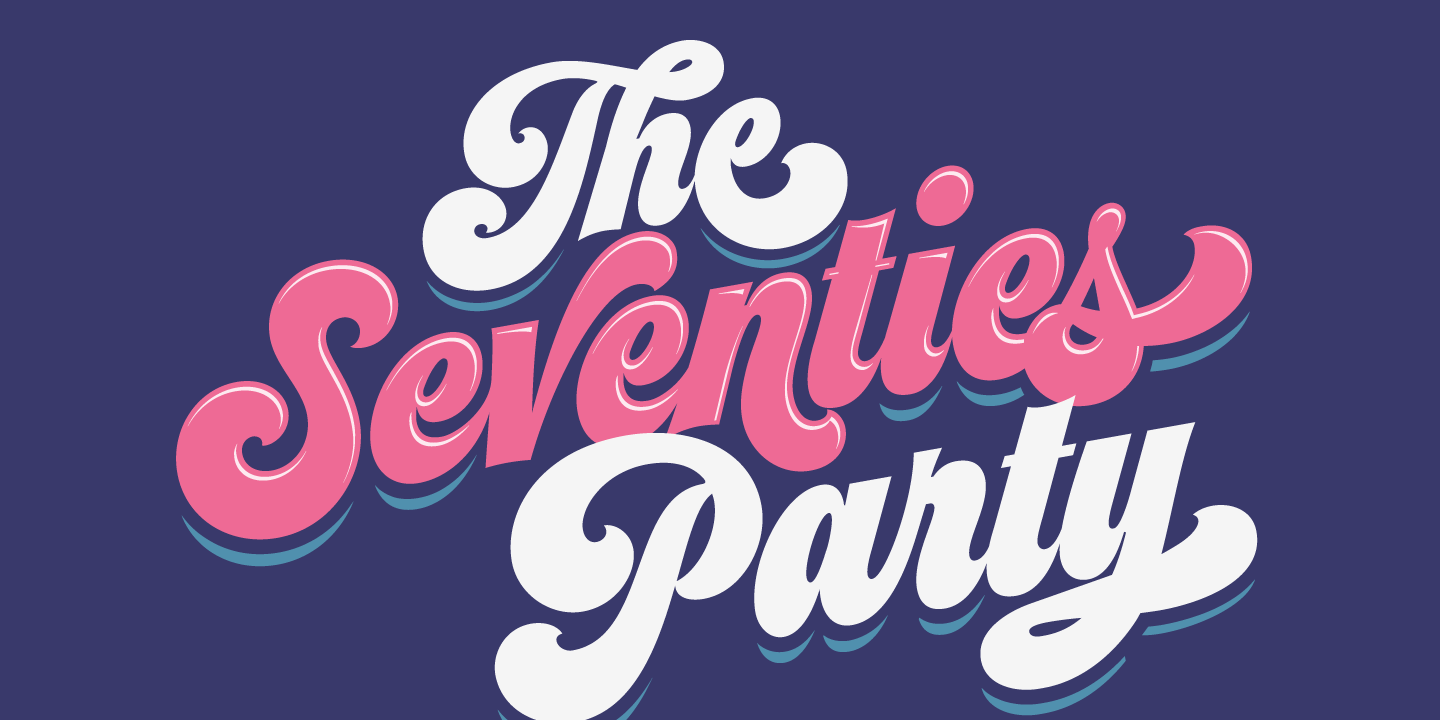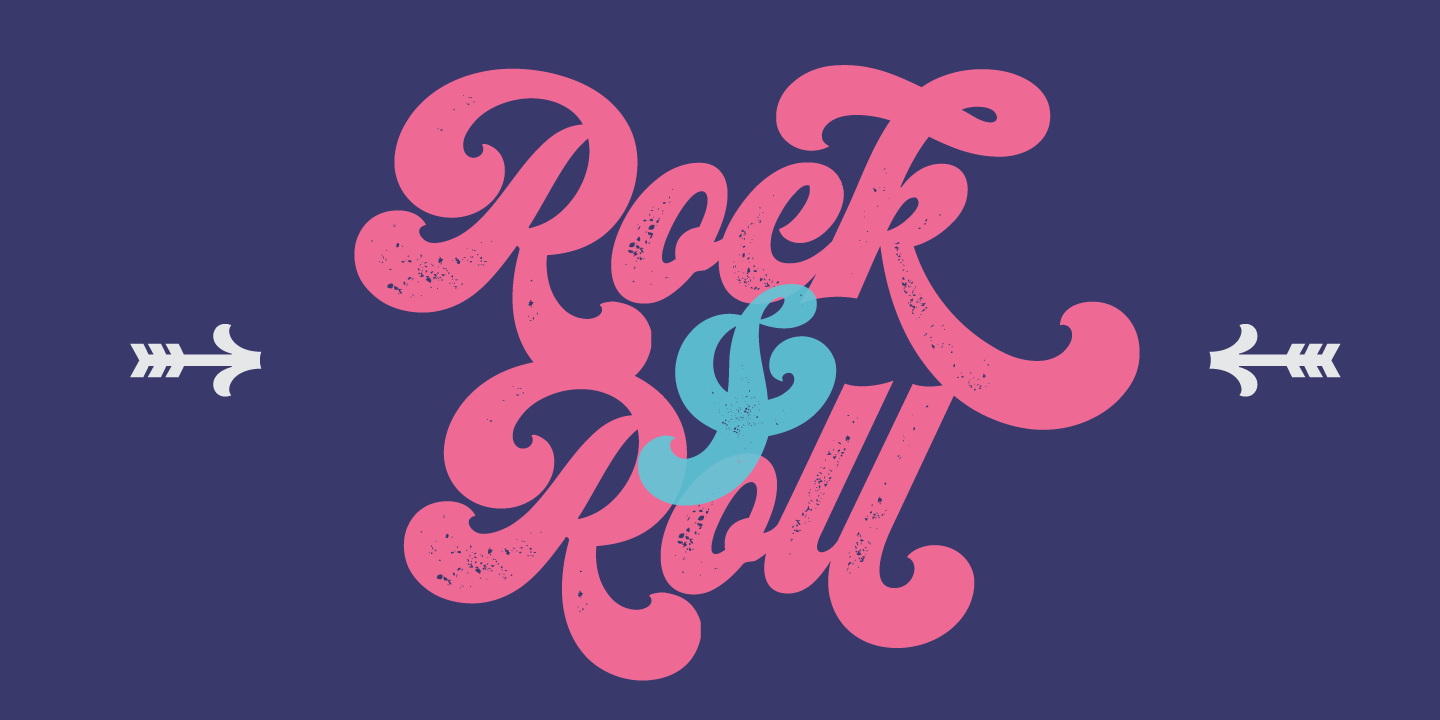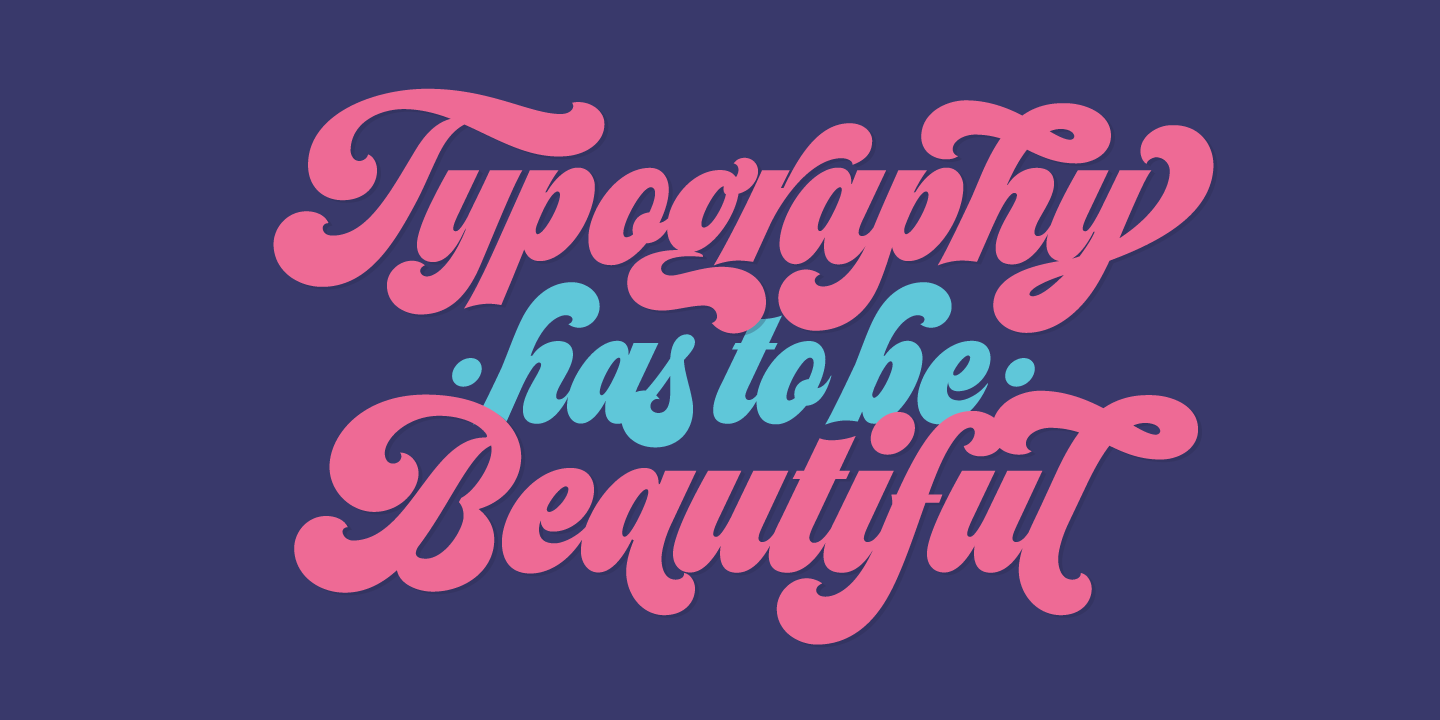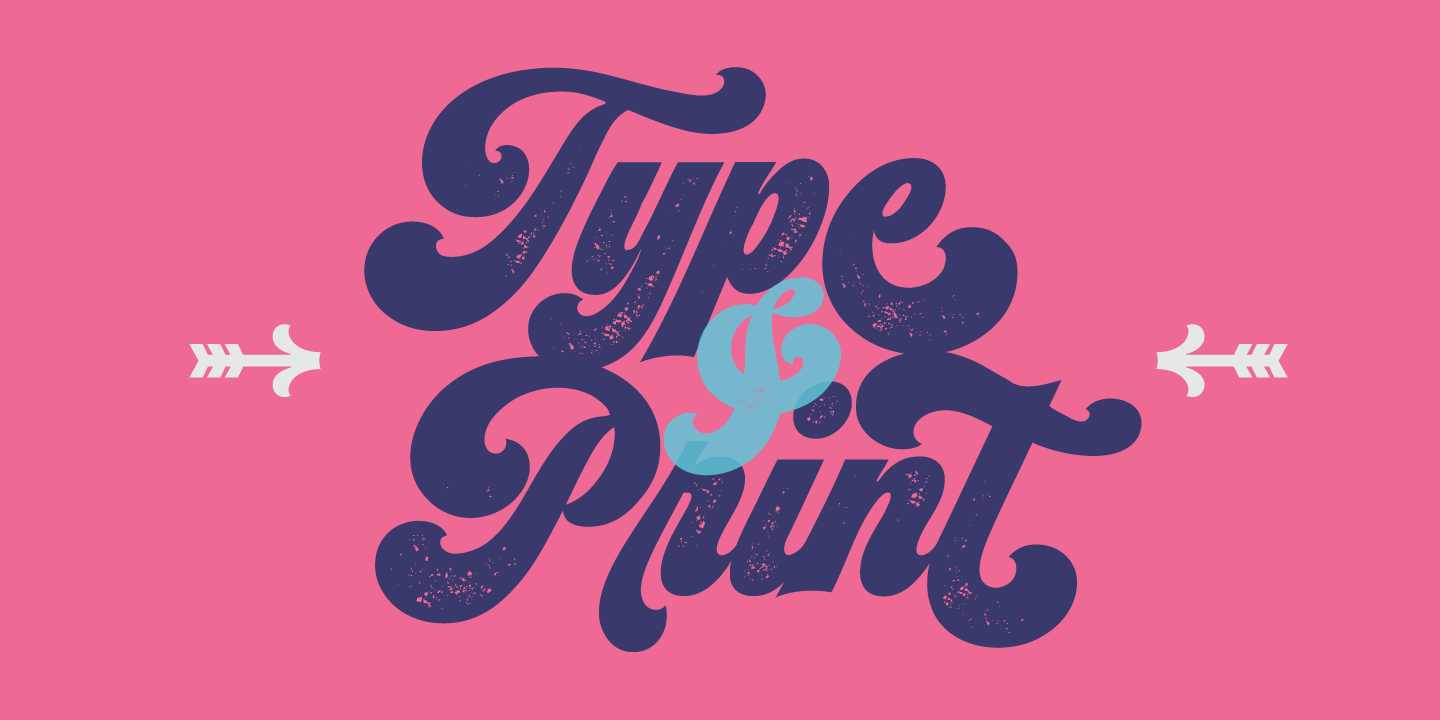
‘Meeeeoooow’! Seventies is another of my ‘funkadelic’ attempts to fill the existing gap of seventyish looking fonts. In my opinion, that decade has a hidden treasure regarding type that remains unexplored: Only very few fonts rescue its ‘groovy’ essence, its ‘colourful’ qualities.
But, don't have a cow man, and keep on truckin! With Seventies, my new foxy mama, your projects will stand out among the rest.
Since there’s not much information available about this kind of lettering I had to get ideas from other styles: Nowadays it’s easy to find all kind of books or guides to understand and practice how different styles of calligraphy and lettering should be done. However, for some reason, 60s and 70s letters seemed to ignore/be free of rules... Was this suggesting the birth of postmodernism?
I incorporated some ideas of the copperplate style of calligraphy: The ductus of its forms may be compared to the way letters are made in snell/engrosser’s script. Obviously, this is just the idea behind; the delicacy of thins is replaced here with the graceful imprint of really thick thicks with a brushy look and tons of good vibe.
Seventies will work awesome in posters, brands, magazines, book-covers of any kind, due to its modern look adapted to our century.
To make you more psyched, Seventies is a layered font! See examples in the posters using Seventies Shade, Seventies Shine and Seventies Printed.